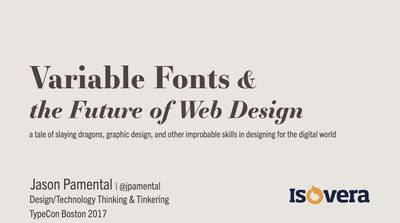
Slide deck cover for Variable Fonts & The Future of Web Design
The web is about words—ok, and cat videos—but otherwise lots and lots of words. We’re well past the tipping point of ‘more mobile than desktop’, and the use of content management systems has skyrocketed—so the way we set those words has a bigger impact than ever on design, usability, and brand differentiation. There’s no doubt that typography is our most important tool in great design and UX, but that can’t come at the expense of performance. Otherwise we risk our great designs never being seen. Enter the latest development in type technology: Variable Fonts, coming to web browsers near you.
Envision a single font file that can scale in size, width, weight and even x-height—exactly as the type designer envisioned. All controllable with CSS. Everything from super-fine-line delicacy to the chunkiest slab headlines; wide widths in banners and slightly narrower body copy for better line lengths on mobile devices. If type is the voice of your words, that voice just became a chorus. We’ll look at the technology, how to use it, timeline for release, and most importantly: their impact on the dynamic range of our design capabilities. Make no mistake: variable fonts will have a more significant impact on web design than anything since responsive design itself. Learn how you can use them today and be ahead of the web tomorrow.